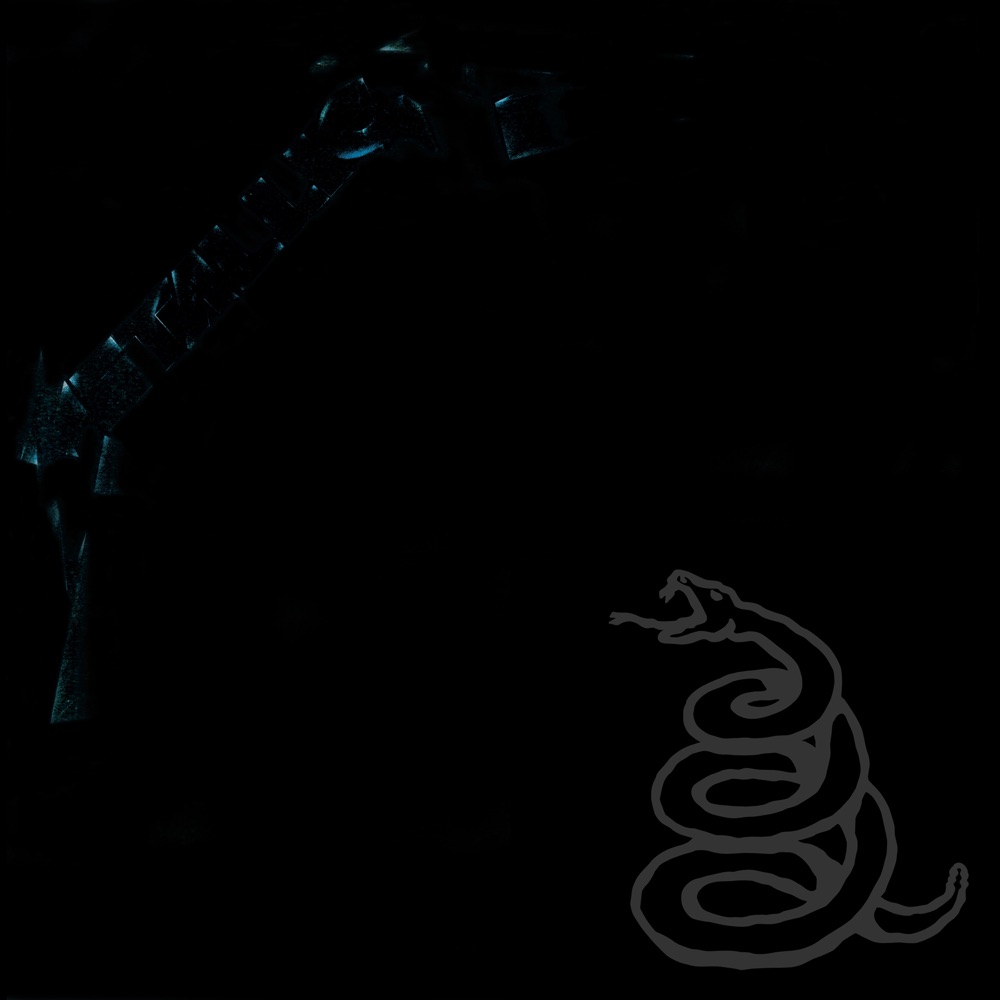
METALLICA
About the Metallica font
The Metallica logo (aka "Pastor of Muppets") has jagged, spiked M and A. Metal Mania delivers that heavy, distressed blackletter-metal energy for free.